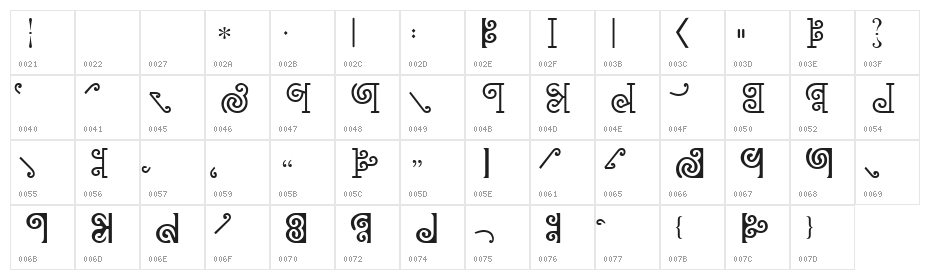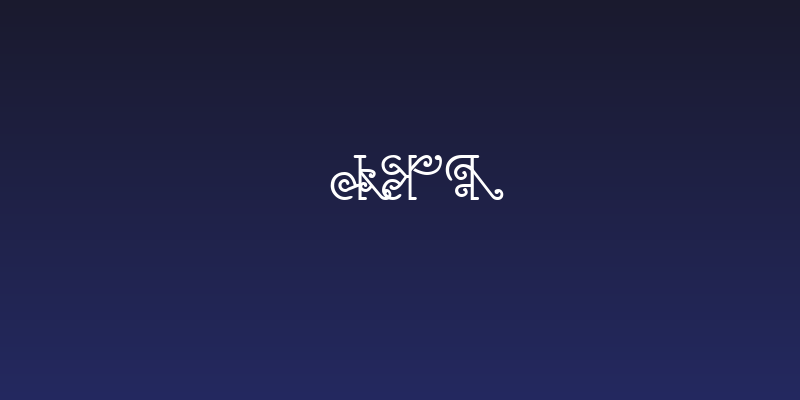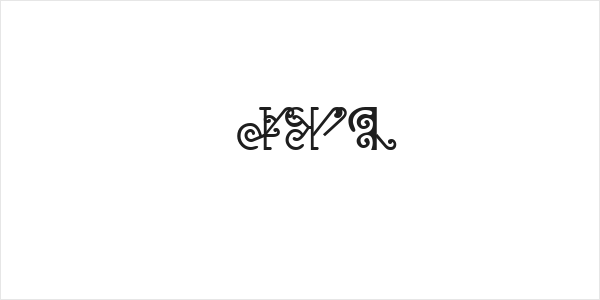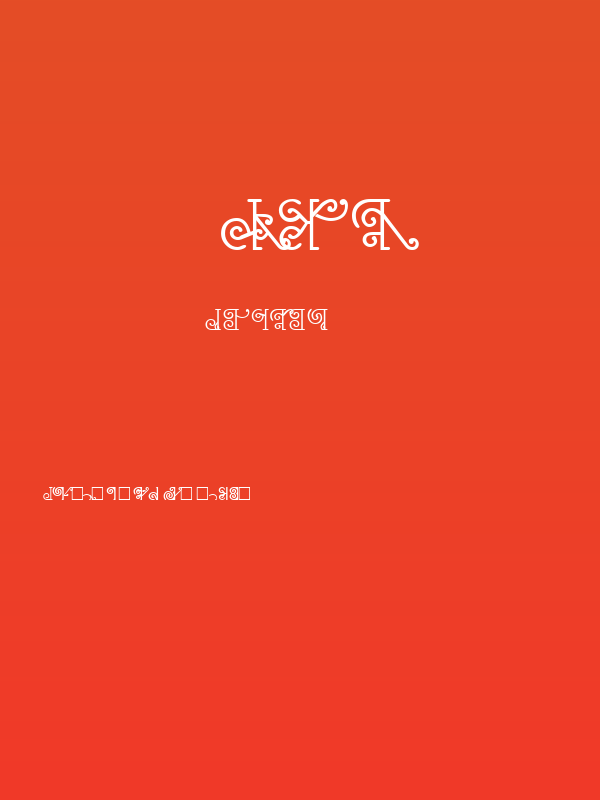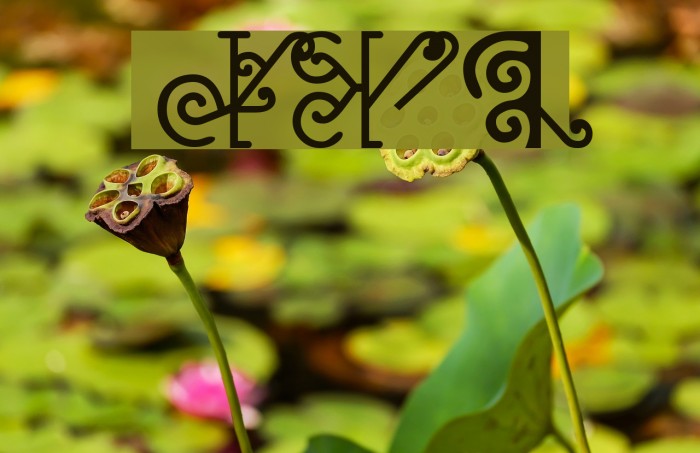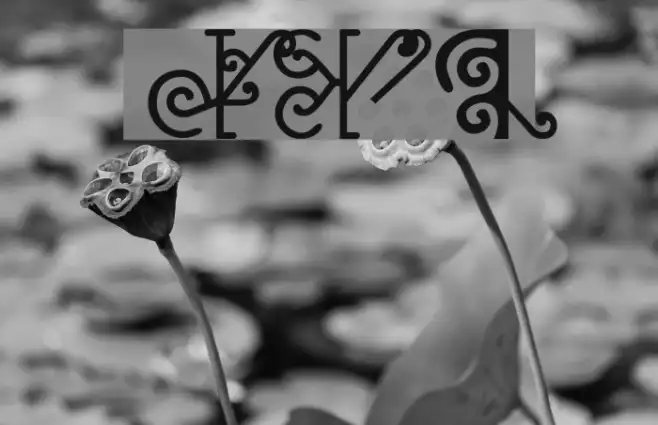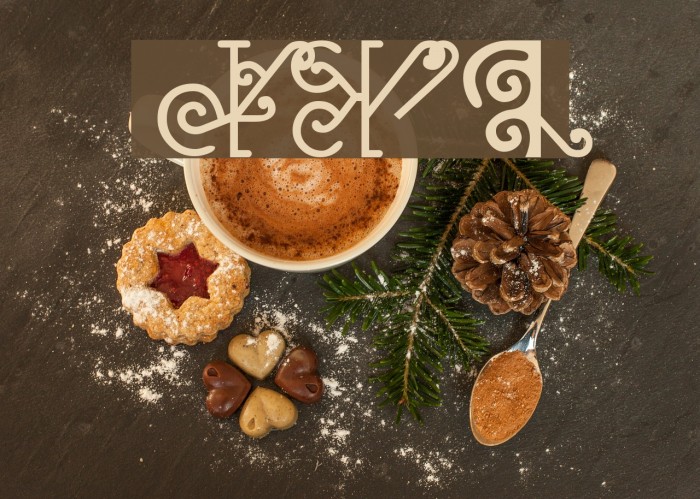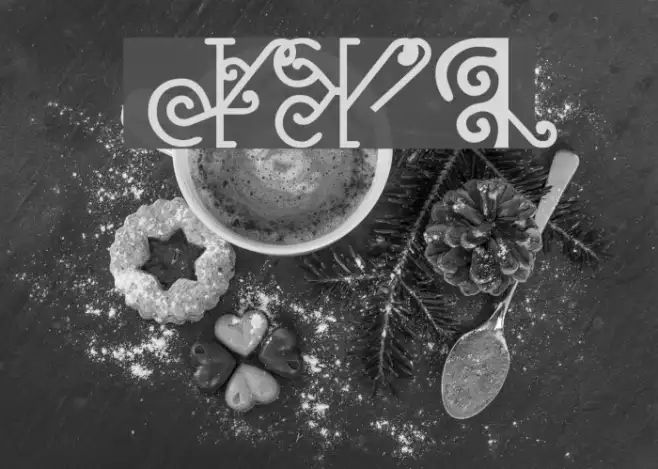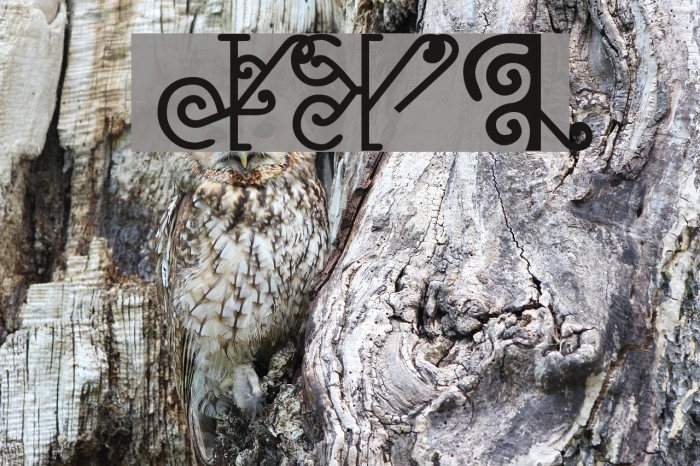
NewMaori Font
NewMaori Description
This font features a unique and intricate design inspired by traditional Maori motifs. The characters are adorned with swirling patterns and decorative elements that evoke a sense of cultural heritage and artistic expression. Each letter is crafted with attention to detail, incorporating curves and spirals that add a dynamic and flowing aesthetic. The font's bold strokes and elaborate embellishments make it stand out, offering a visually striking appearance that is both artistic and culturally significant. It is ideal for projects that aim to celebrate or highlight Maori culture, providing a distinctive and authentic look.
| Use Case | Logos, Headlines, Cultural projects |
| Proposed Projects | Ideal for cultural projects, artistic designs, event posters, and branding that emphasizes Maori heritage. |